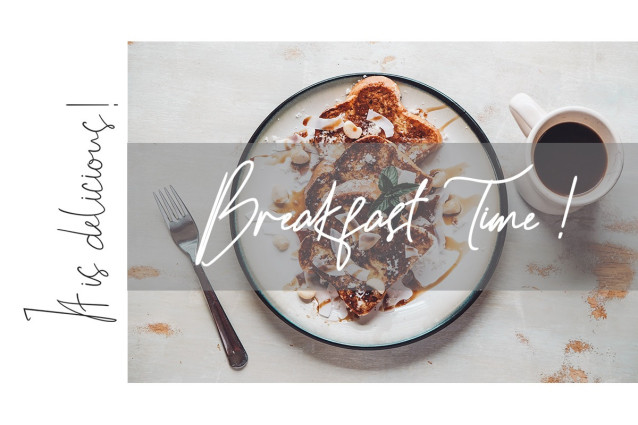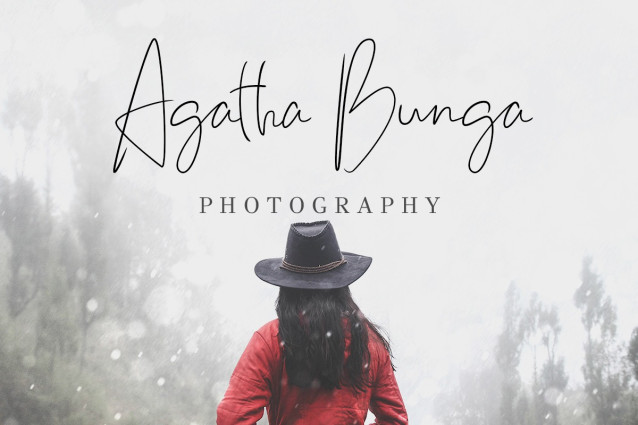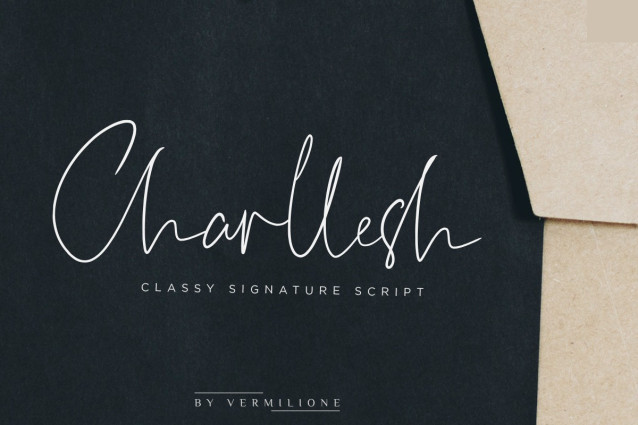
Charllesh Handwriting Font
Charllesh Handwriting Font is modern feminine font, every single letters have been carefully crafted to make your text looks beautiful. With modern script style this font will perfect for many different project ex: logo, photography, watermark, quotes, blog header, poster, wedding, branding, logo, fashion, apparel, letter, invitation, stationery, etc.